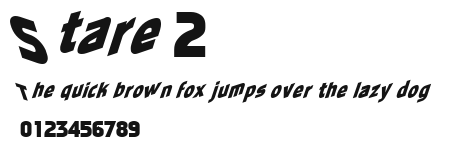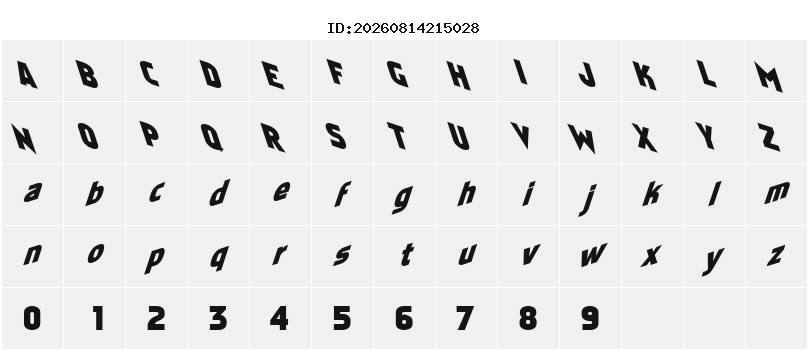
• Font Name: Stare 2
• Font ID: FontMonger:Faktos Mirror Normal
• Full Font Name: Stare 2
• PostScript Name: FaktosMirrorNormal
• Character Count: 281
About Stare 2.ttf
Stare 2.ttf is a modern, elegant sans-serif font designed for ultimate readability and visual harmony. Perfect for branding, headlines, web design, and print materials.